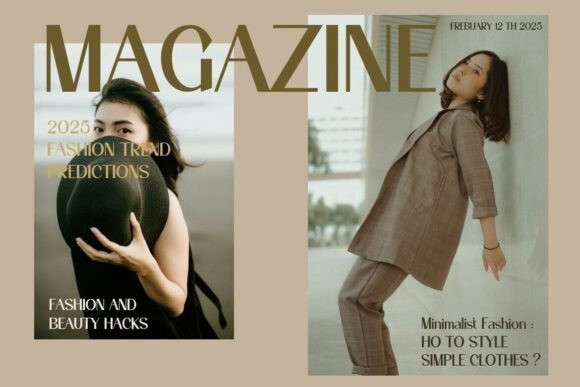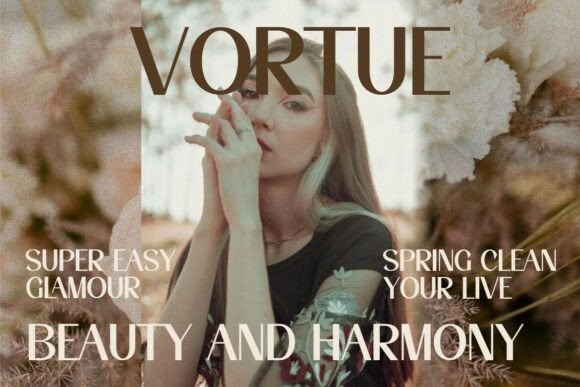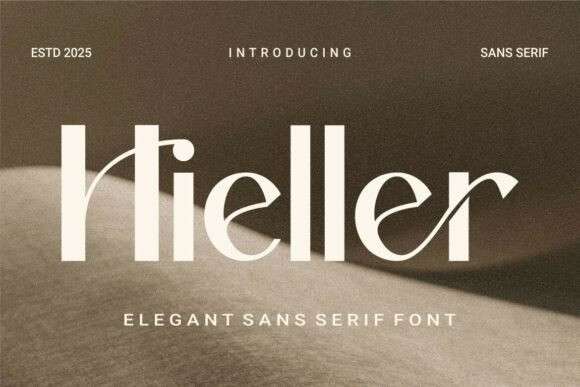
Hieller Font
Hieller Font is a clean, sophisticated sans serif font with subtle flourishes that add a unique modern touch. Its balance of simplicity and style makes it perfect for branding, editorial design, and upscale packaging where timelessness and elegance meet.